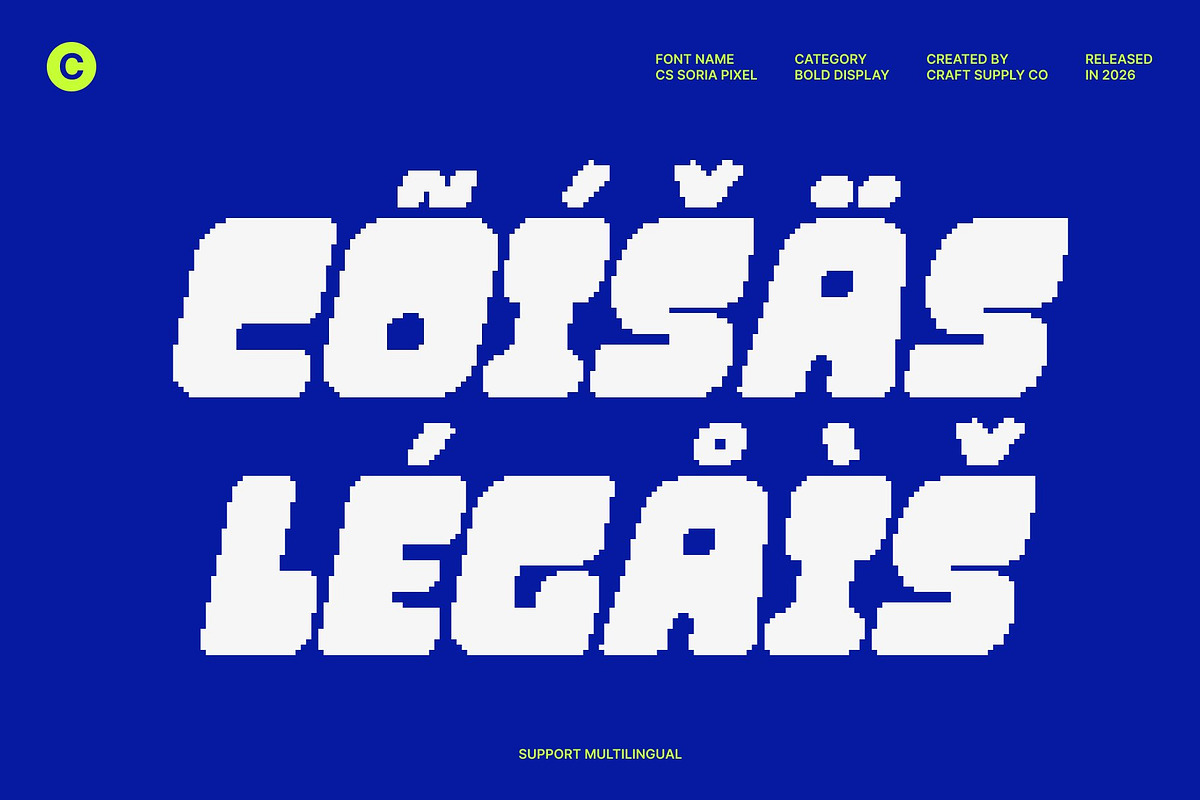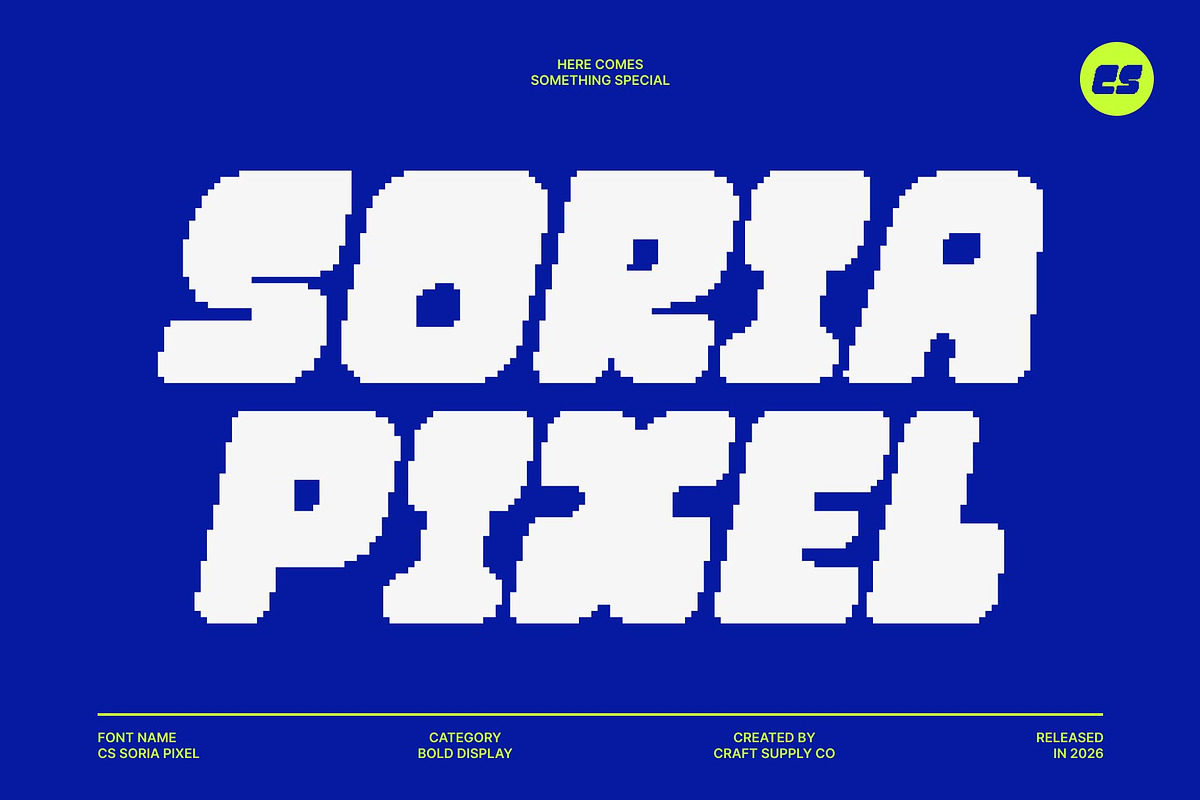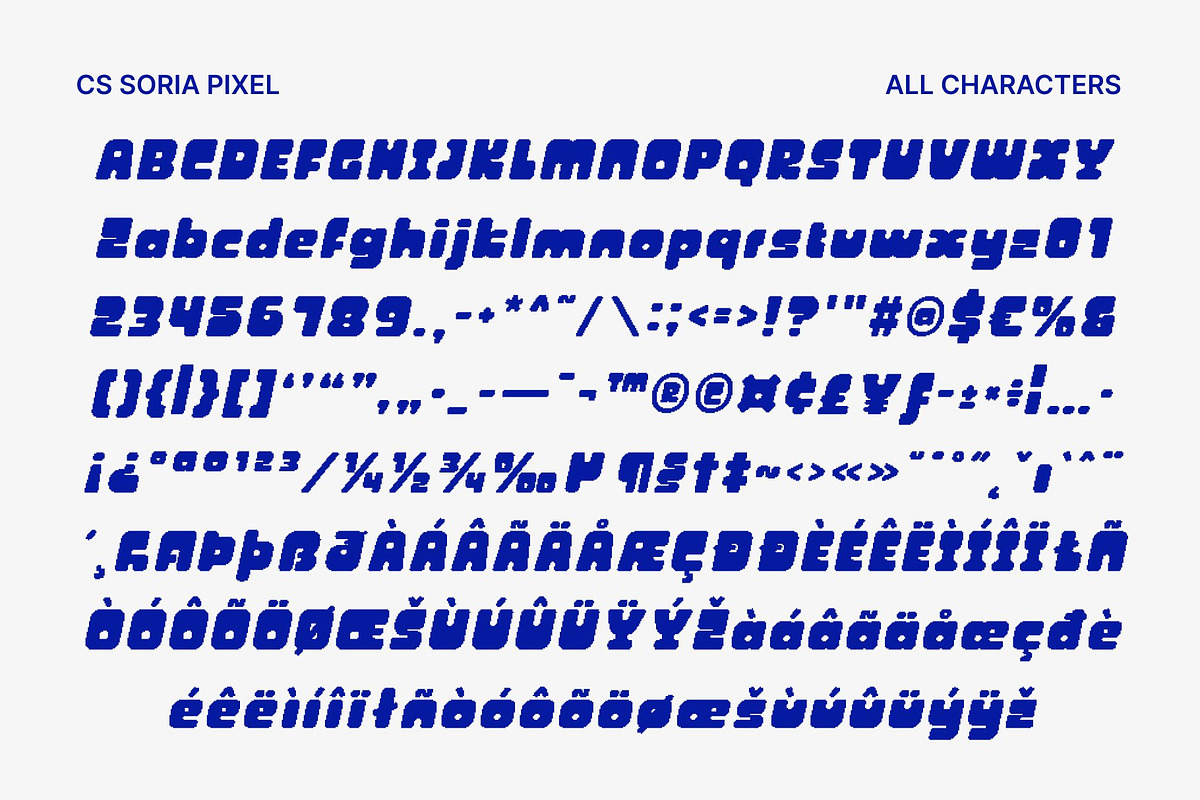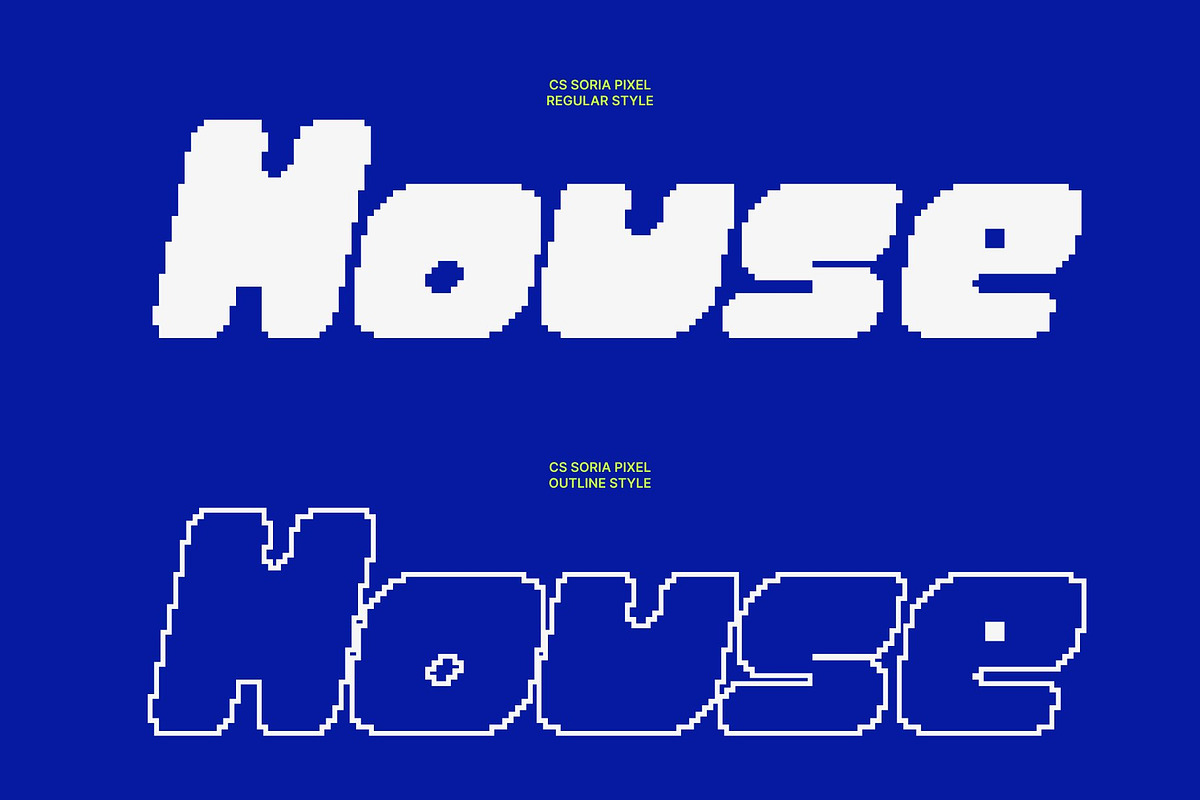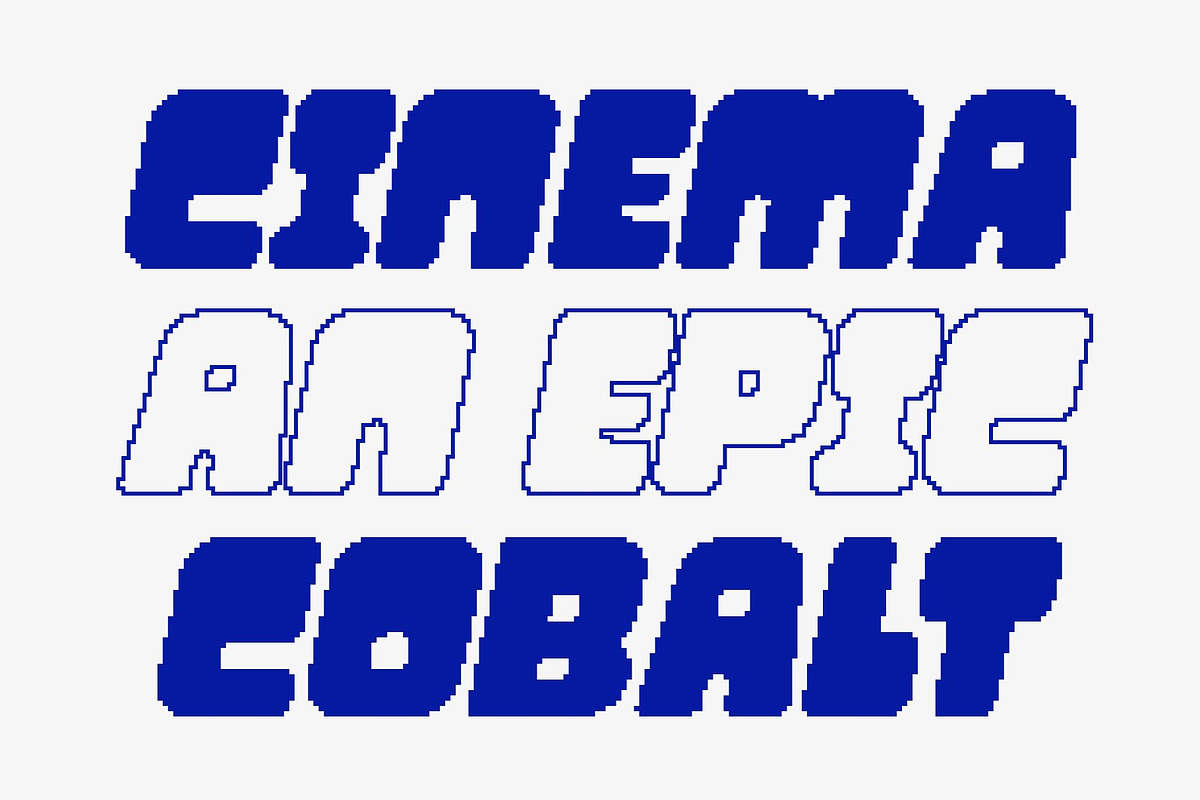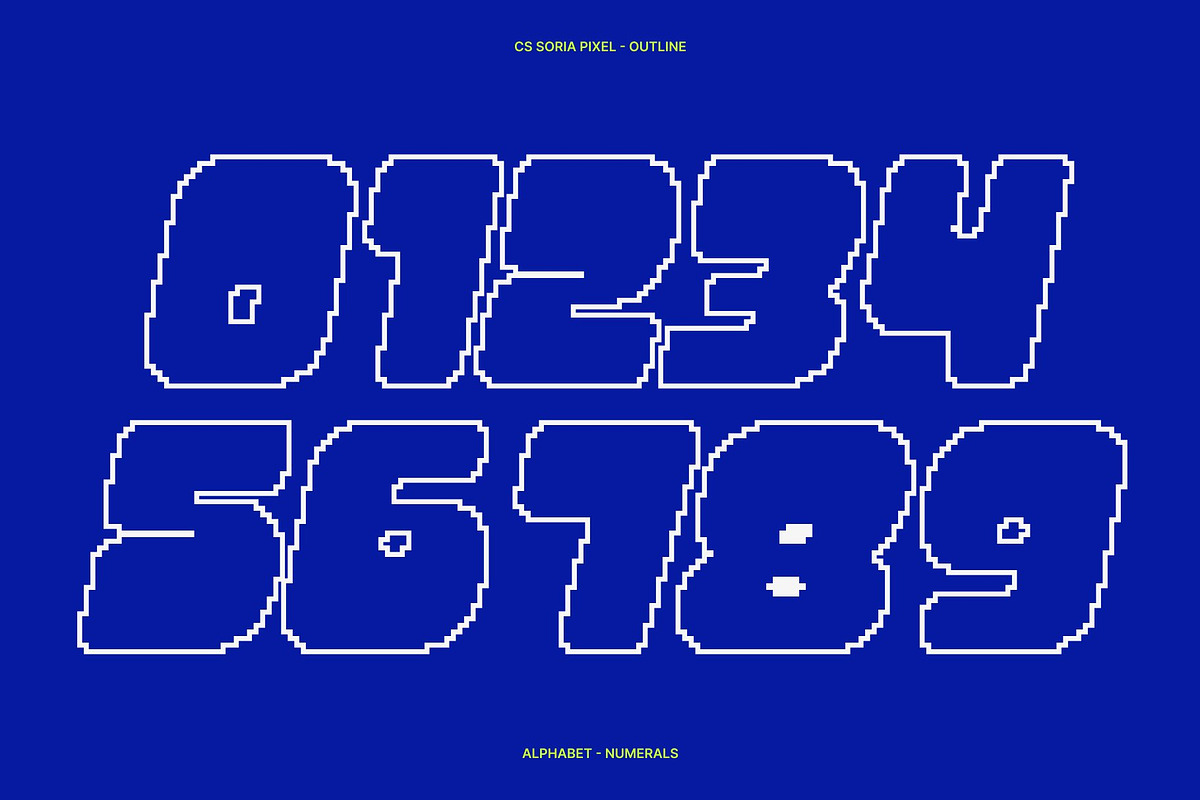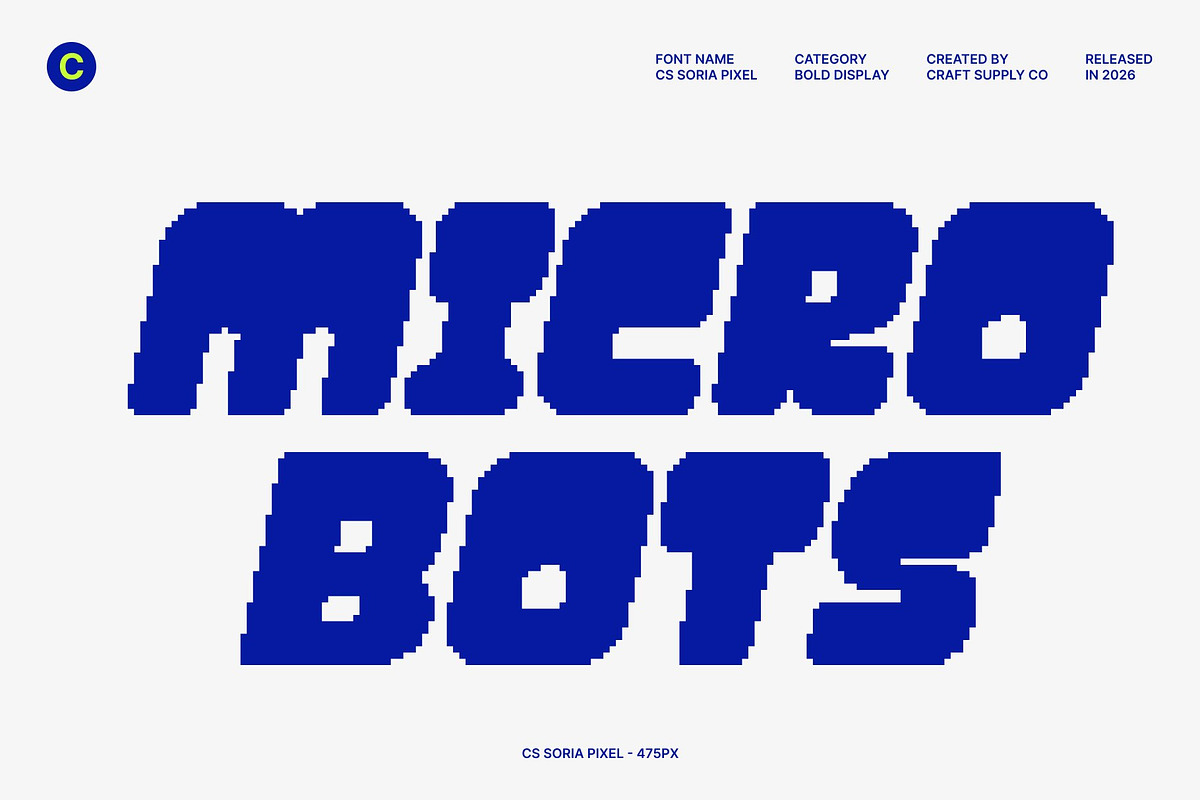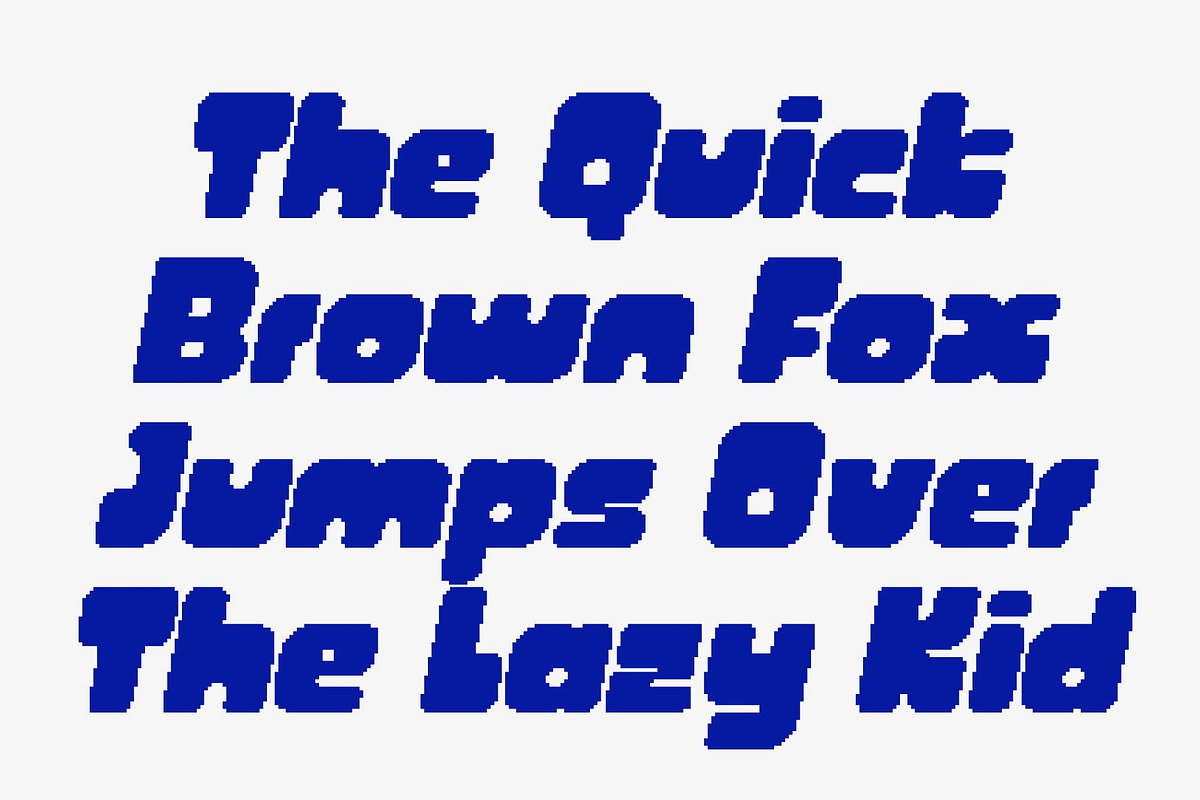
CS Soria Pixel
CS Soria Pixel – Bold Y2K Style with Futuristic Flair
Y2K Display Font with Pixel-Powered Energy This is a bold display font inspired by the vibrant aesthetics of the early 2000s, enhanced with sharp pixel detailing. Its thick, confident forms and sleek geometry channel the futuristic optimism of the Y2K era where digital culture meets daring creativity. Every character radiates attitude, making it perfect for designs that embrace nostalgia with a modern tech edge.
Thick Sculpted Forms with Digital Precision Built with solid, heavy strokes and defined pixel accents, this font commands immediate attention. The sculpted proportions create strong visual rhythm, while crisp digital edges reinforce its futuristic identity. It delivers maximum impact in headlines, posters, and logos, ensuring a bold presence across print and screen.
Futuristic Geometry with Playful Retro Charm This font blends smooth curves with angular pixel structure, producing a dynamic tension between softness and sharpness. This fusion captures the playful yet forward-looking spirit of Y2K design energetic, experimental, and unapologetically expressive.
Perfect for Digital, Fashion, and Music Projects Ideal for digital branding, party graphics, music visuals, esport designs, and experimental layouts, this font injects electric 2000s energy into contemporary projects. Whether for fashion campaigns, event posters, or online content, CS Soria Pixel delivers a bold, futuristic statement with unmistakable pixel attitude.